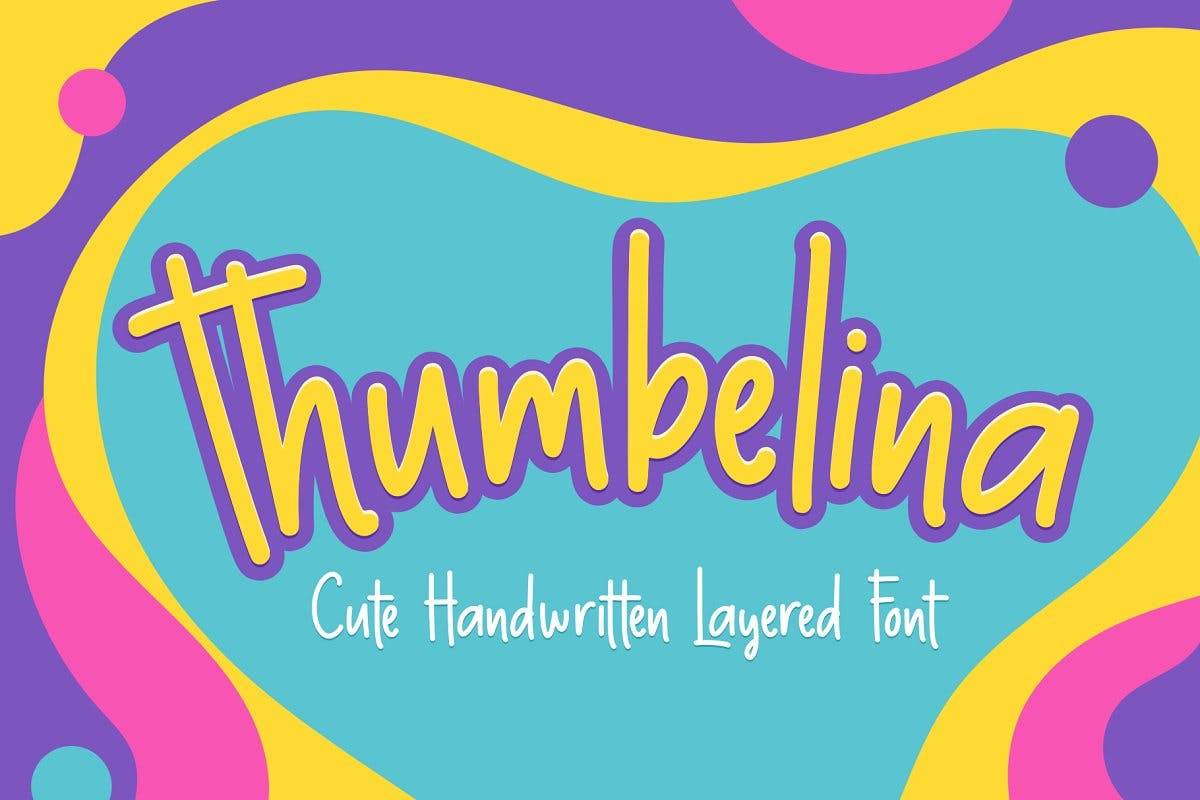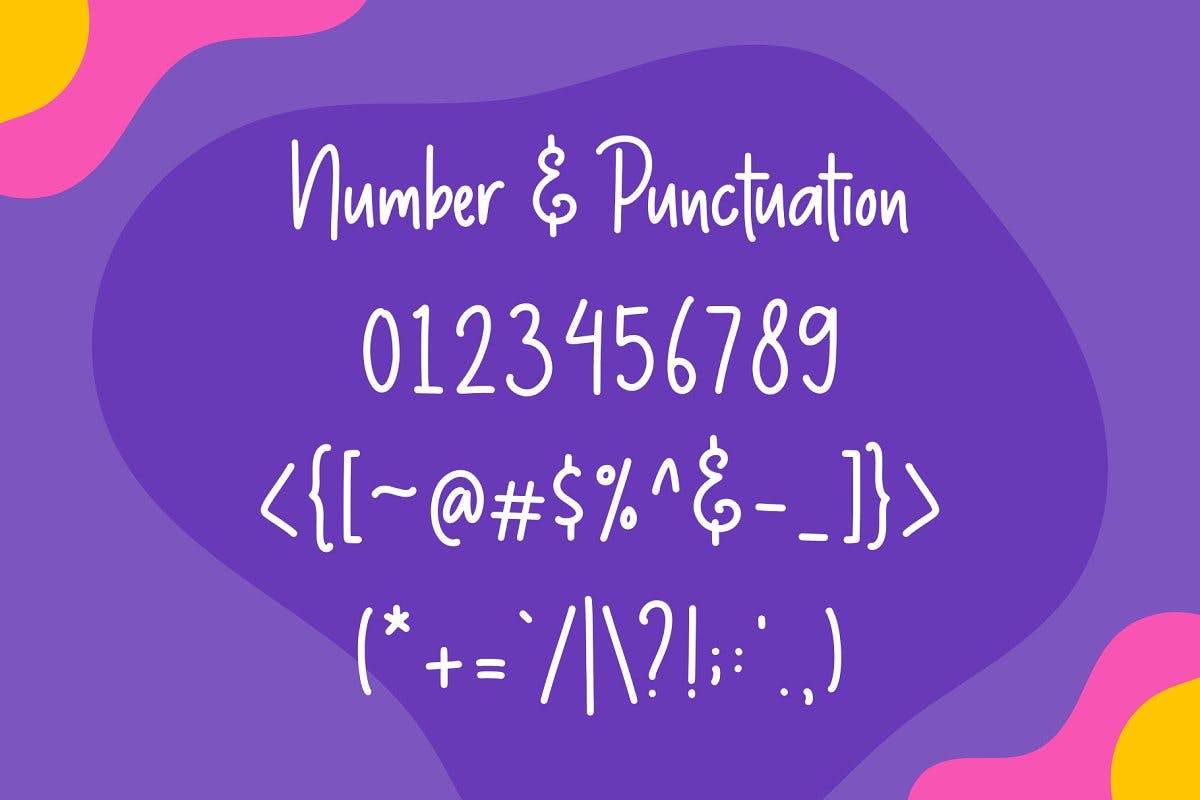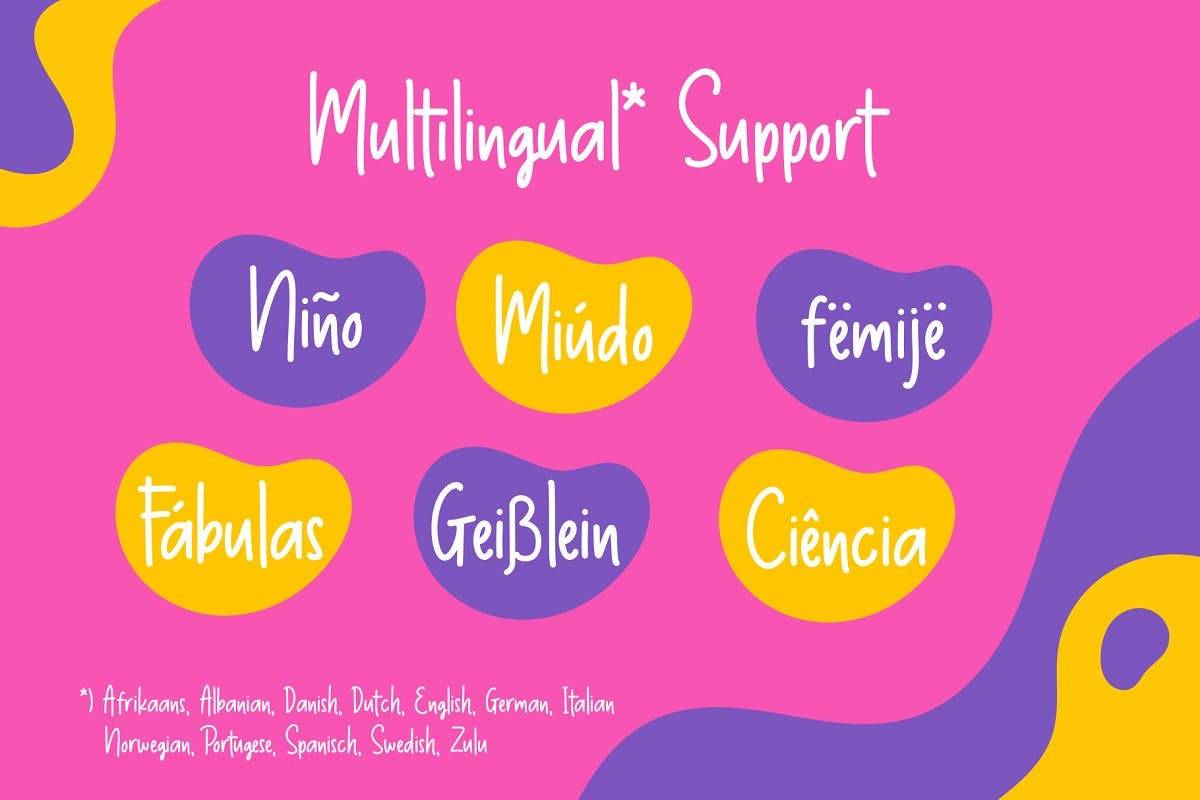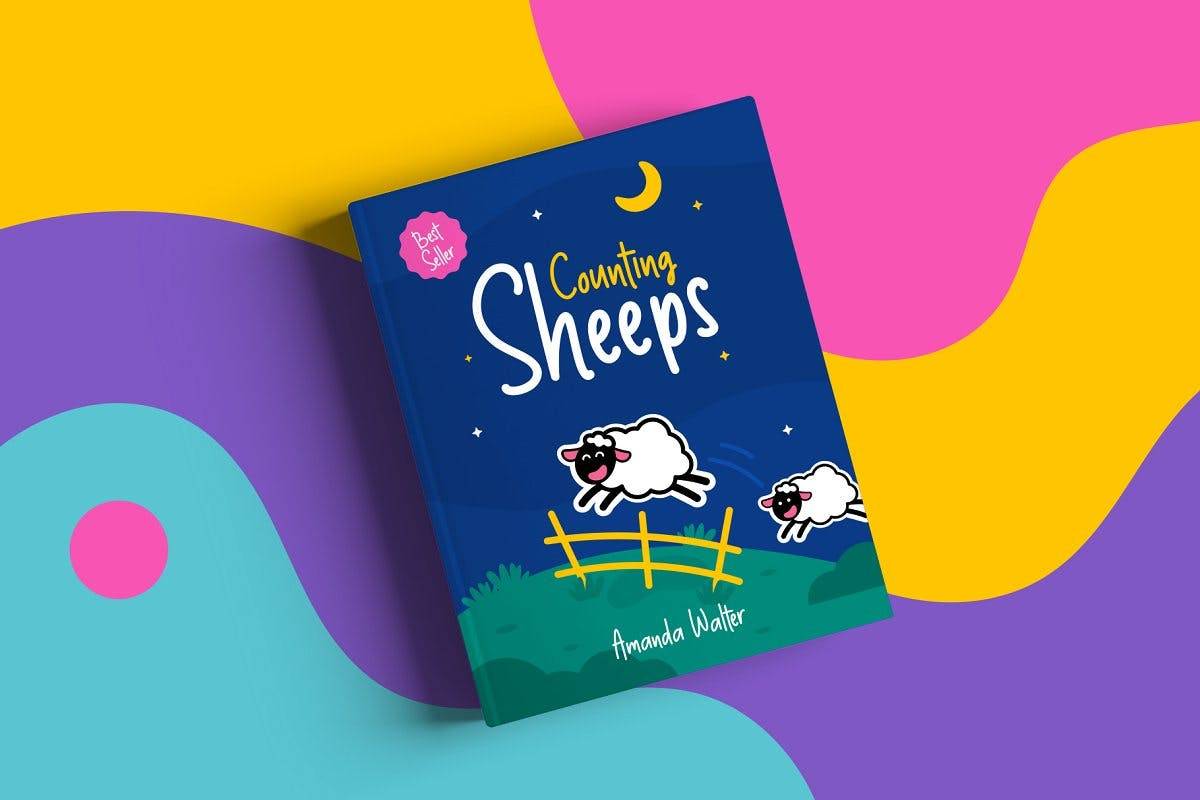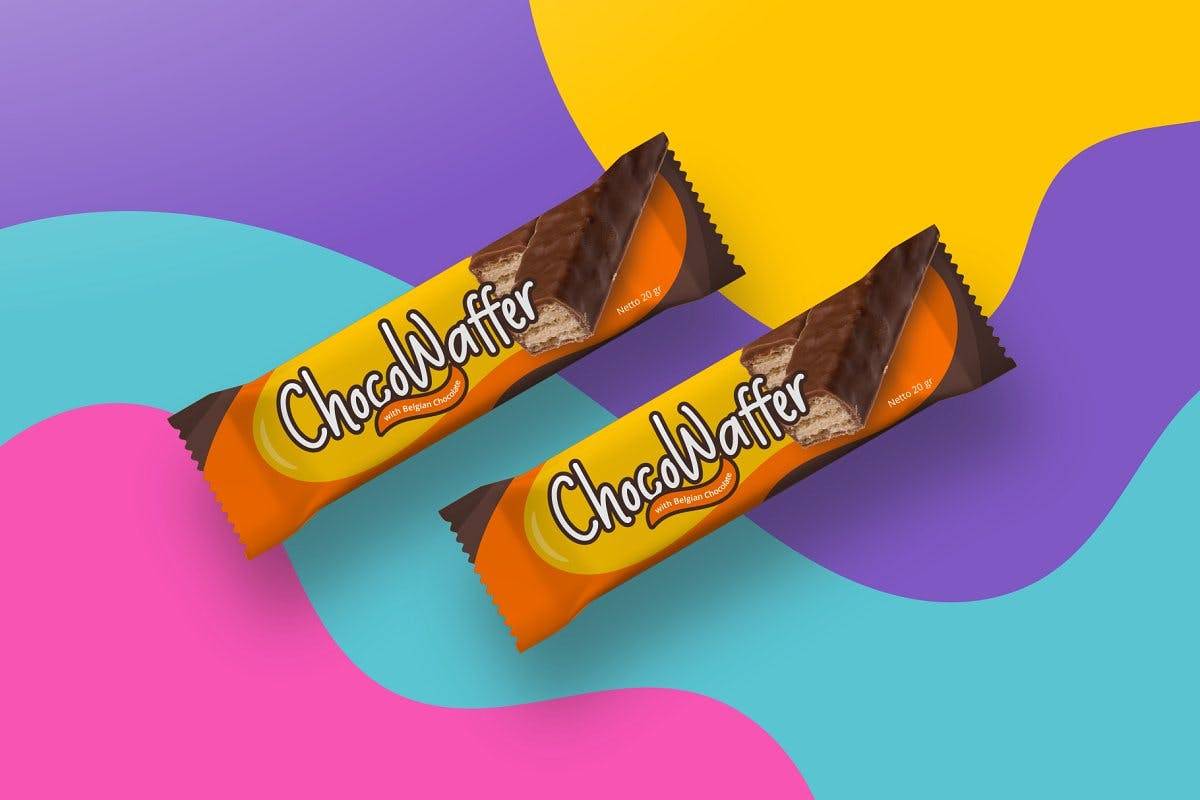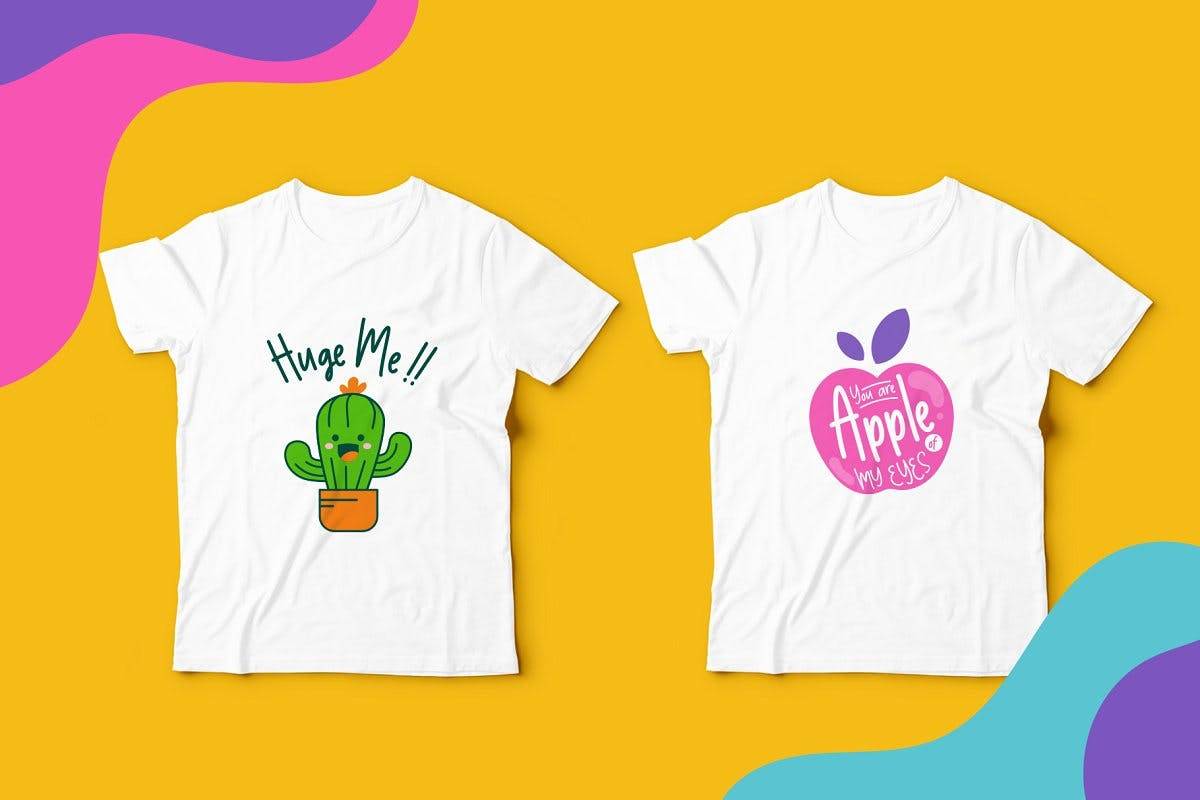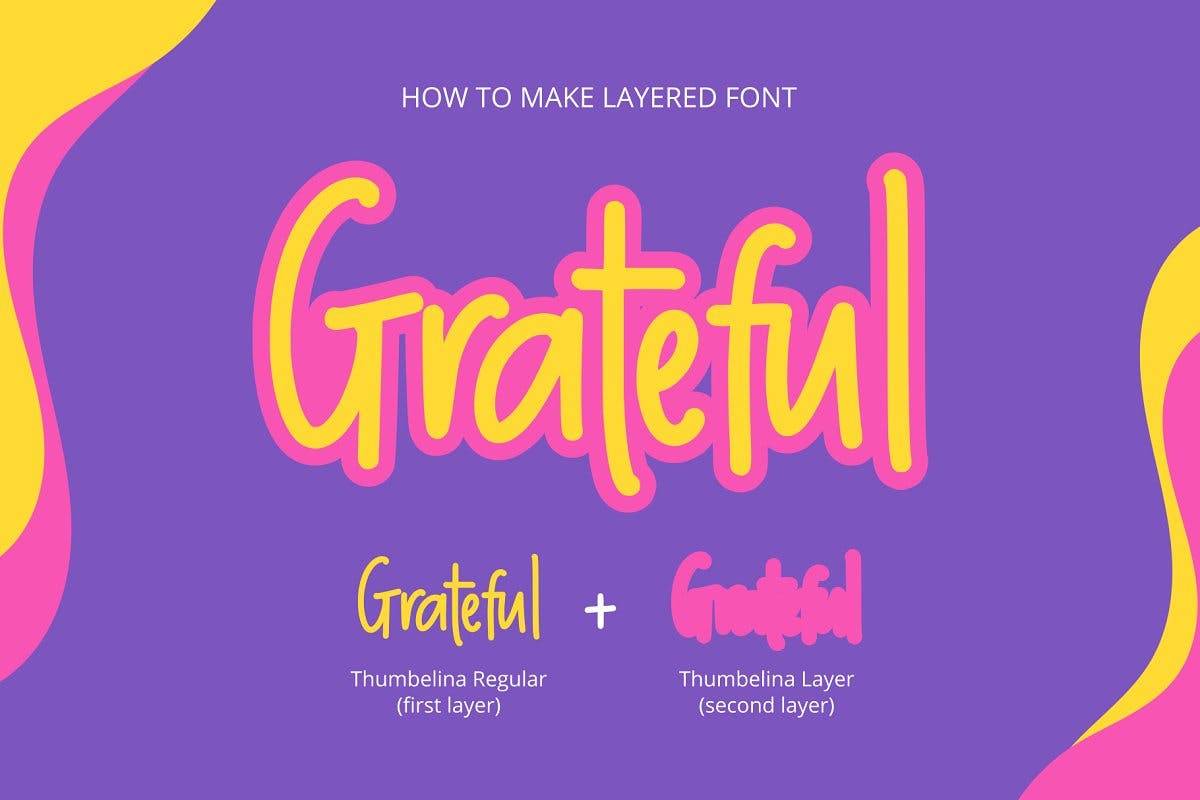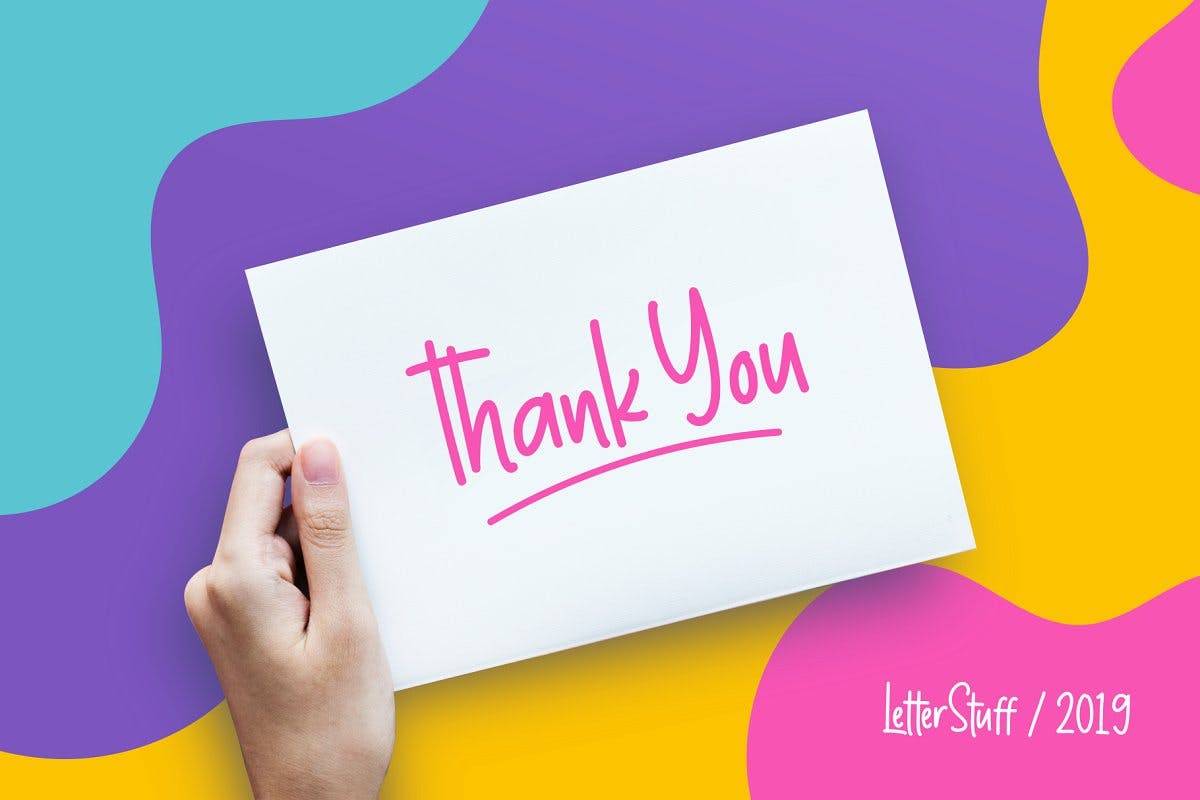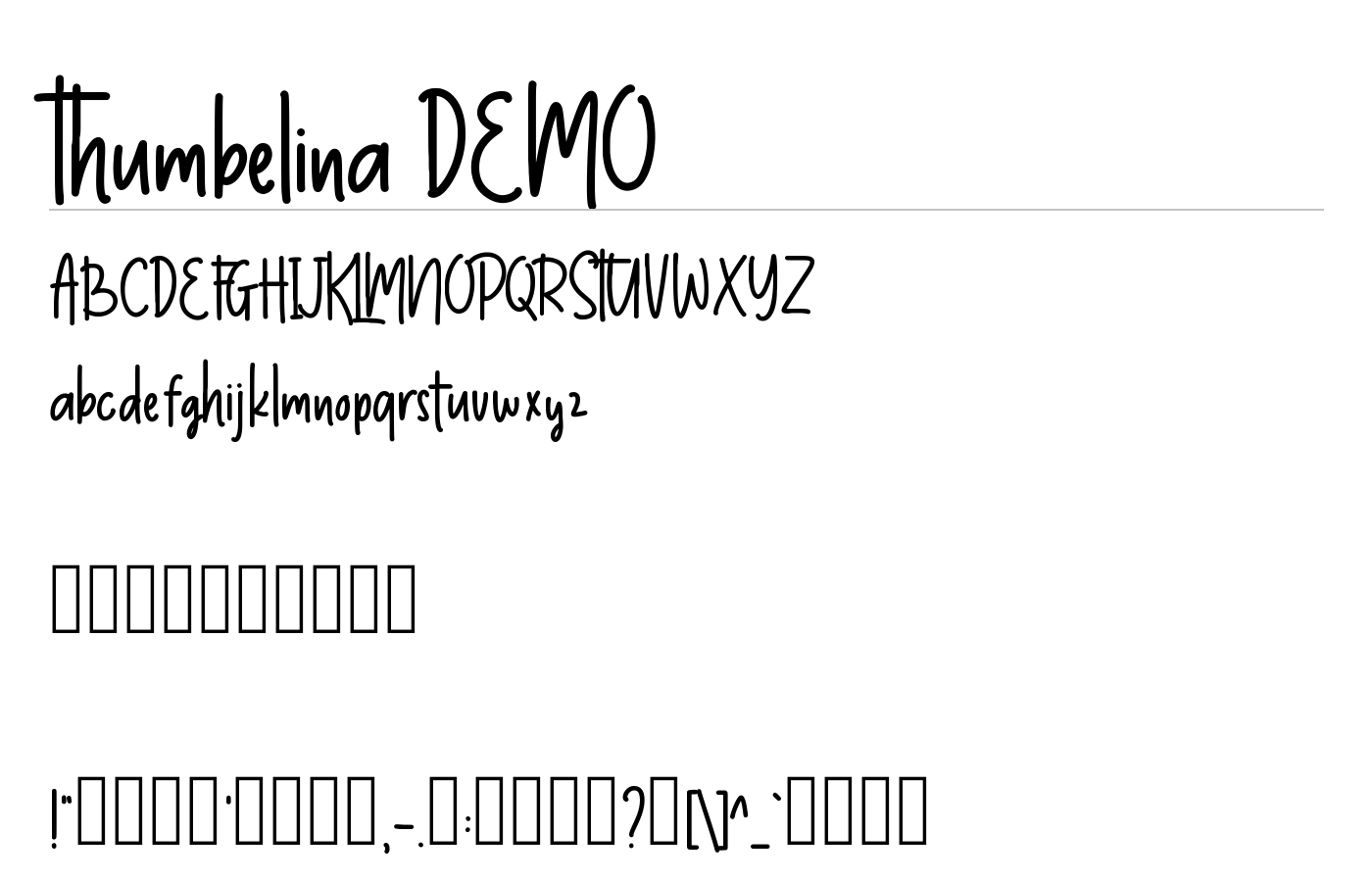
Thumbelina Handwritten Font is a playful and casual script that mimics natural handwriting with a tall, narrow structure and consistent light stroke weight. Its quirky letterforms, featuring both upper and lowercase characters with charming irregularities, give it a friendly and approachable personality. This font works wonderfully for projects that want to convey warmth and creativity, such as children’s books, informal branding, invitations, and fun digital content.
Thumbelina Handwritten Font
About Thumbelina Handwritten Font